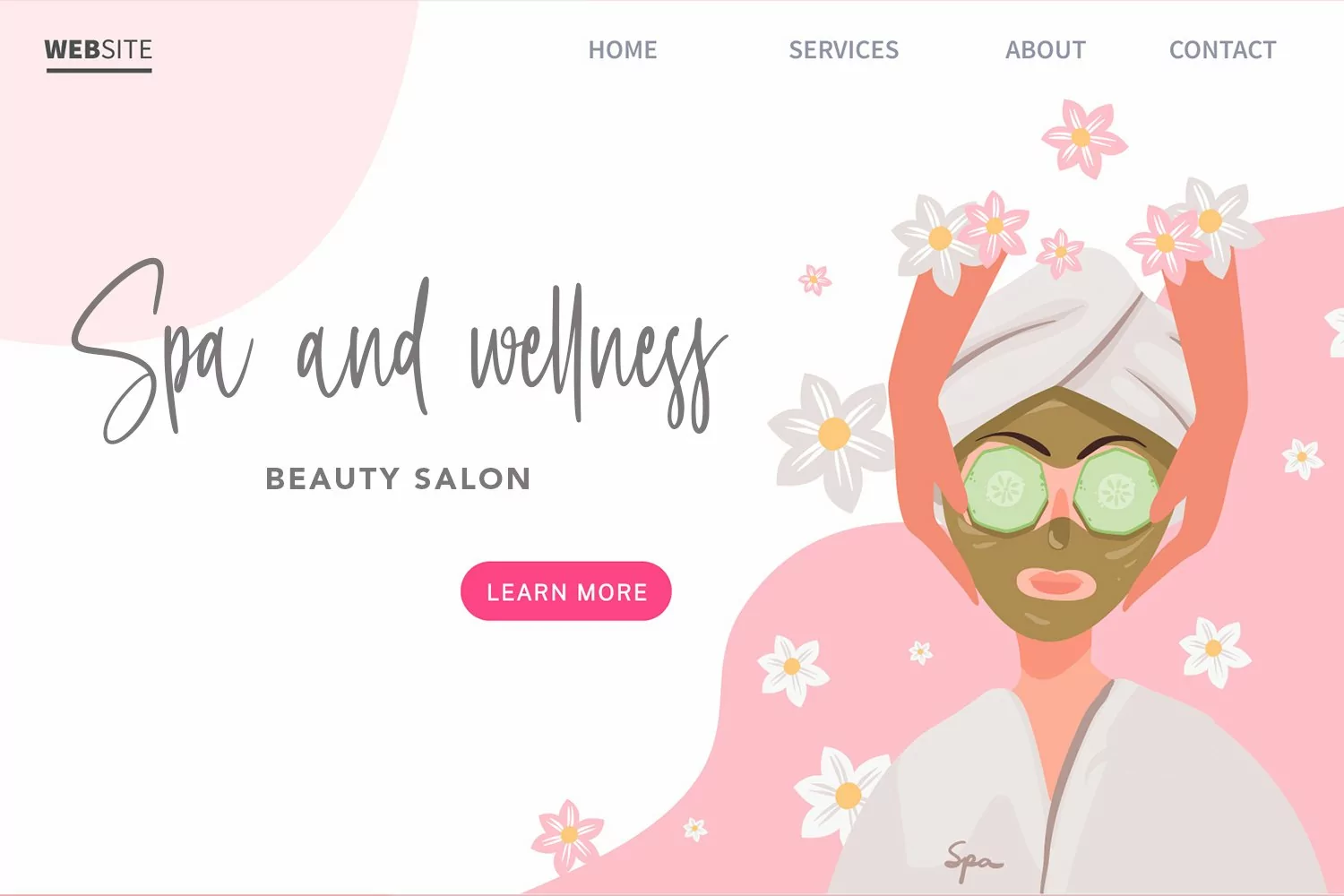
Feminism - Cute Handwritten Font that contain lowercase, uppercase, symbol, and also support multi language. There’s a lot ligatures in this font. This Font also comes with ligatures, alternates and many more. this font suitable for fashion, branding, catalog and other design what you want.
Feminism